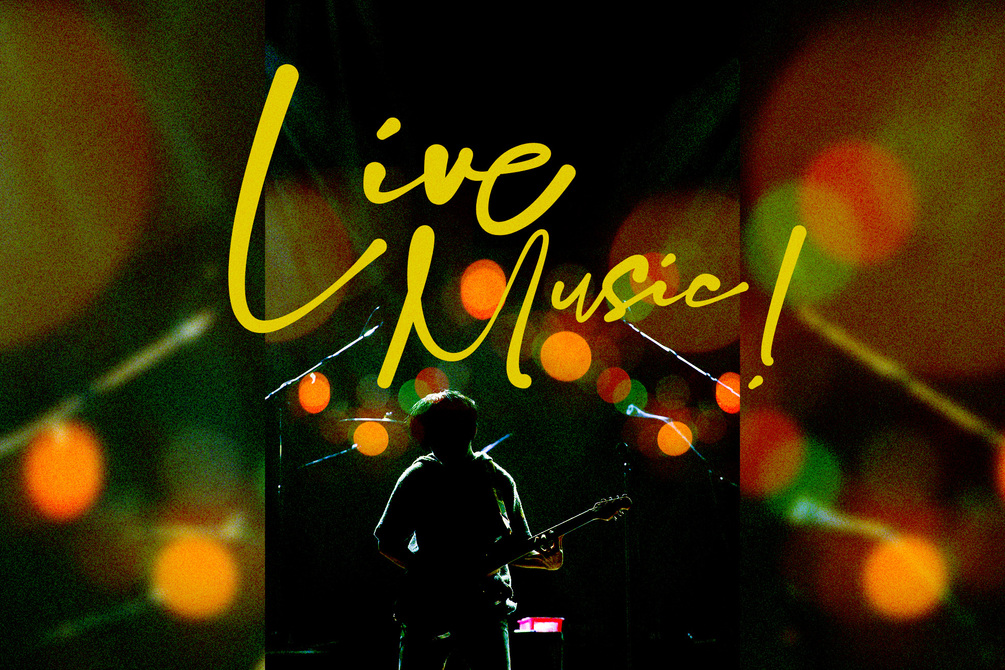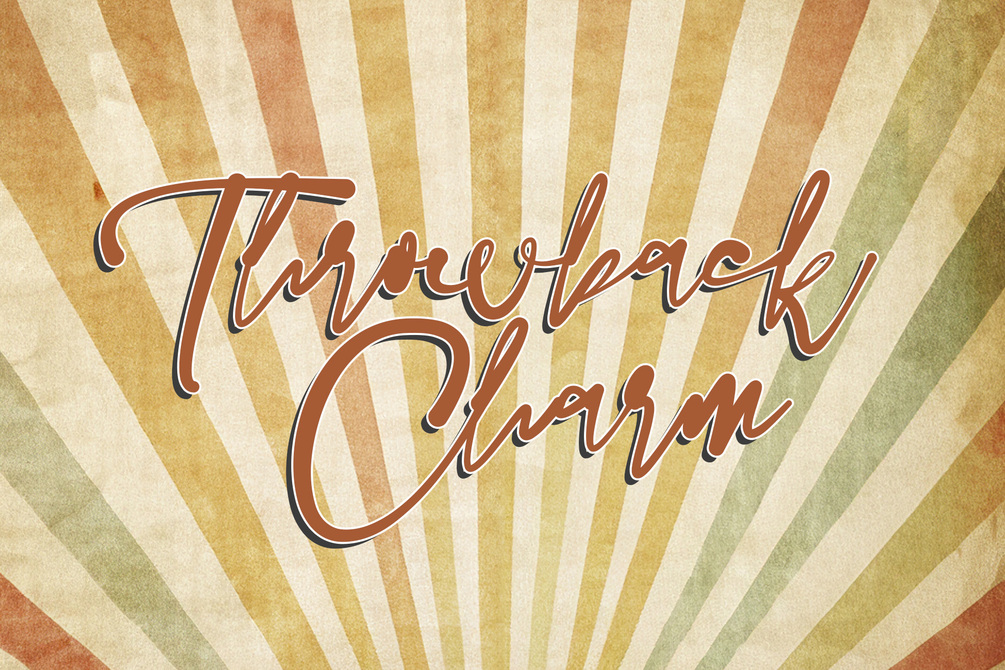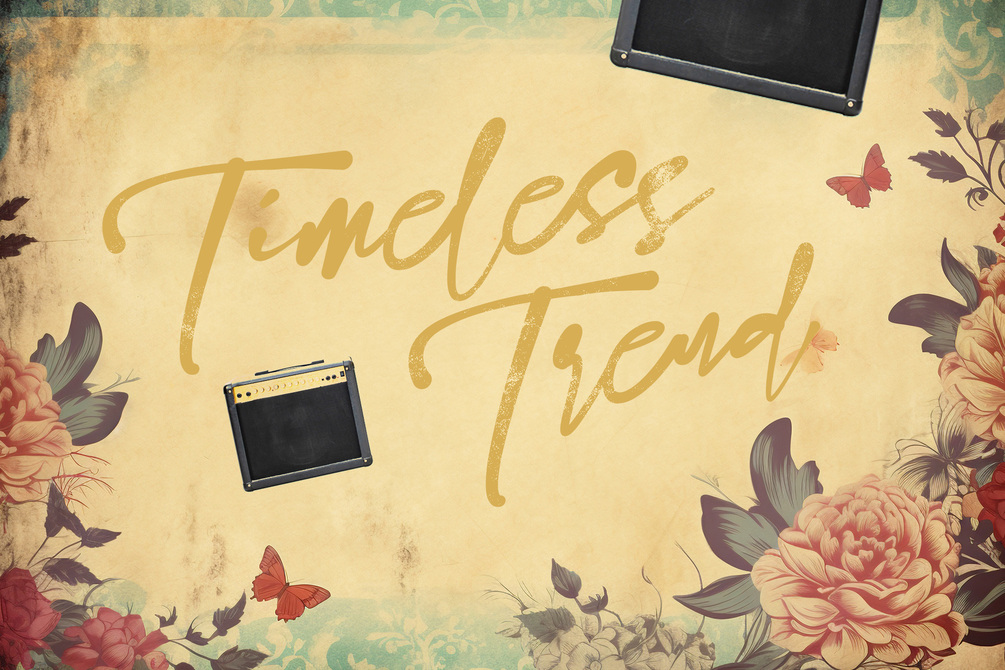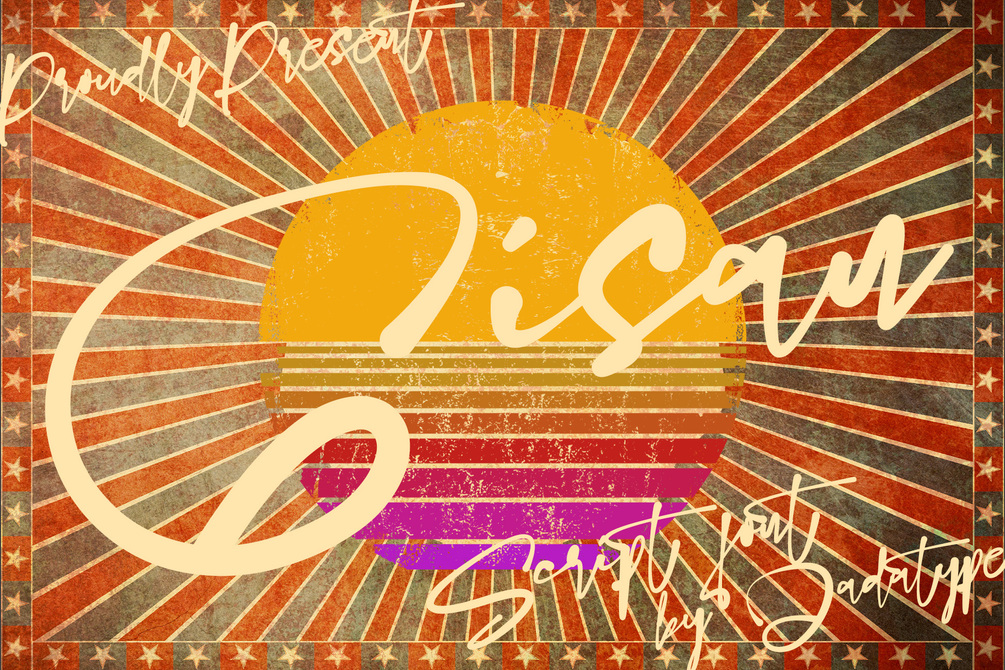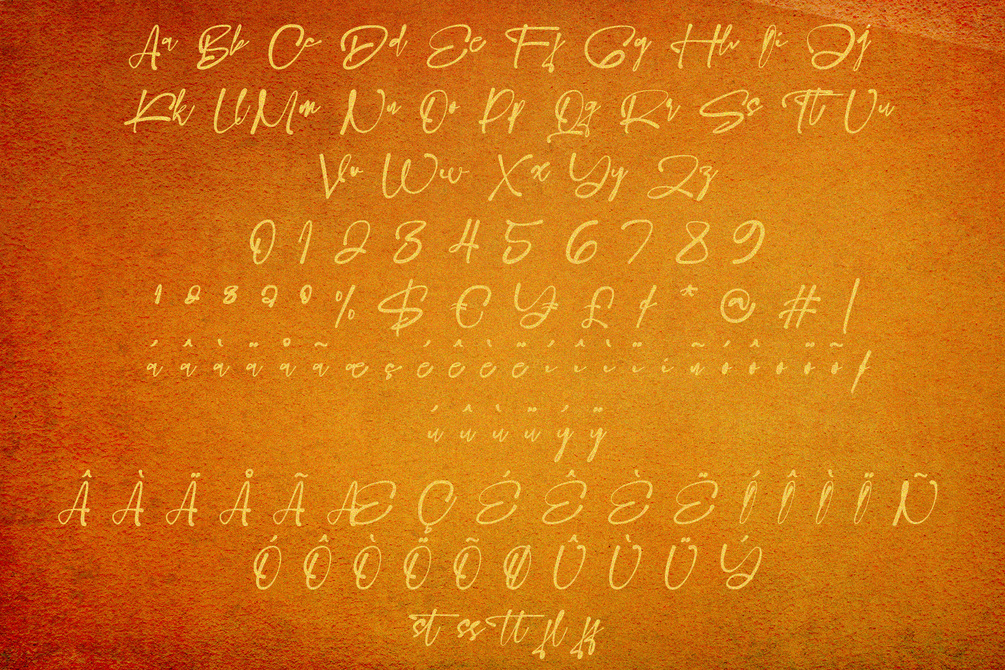
Gisan Font
Gisan is script that comes with smoth brush. Suitable for product, Branding, social media, logotype and so on. contains standard English letters, numbers, punctuation, and several accents that support multilingualism.